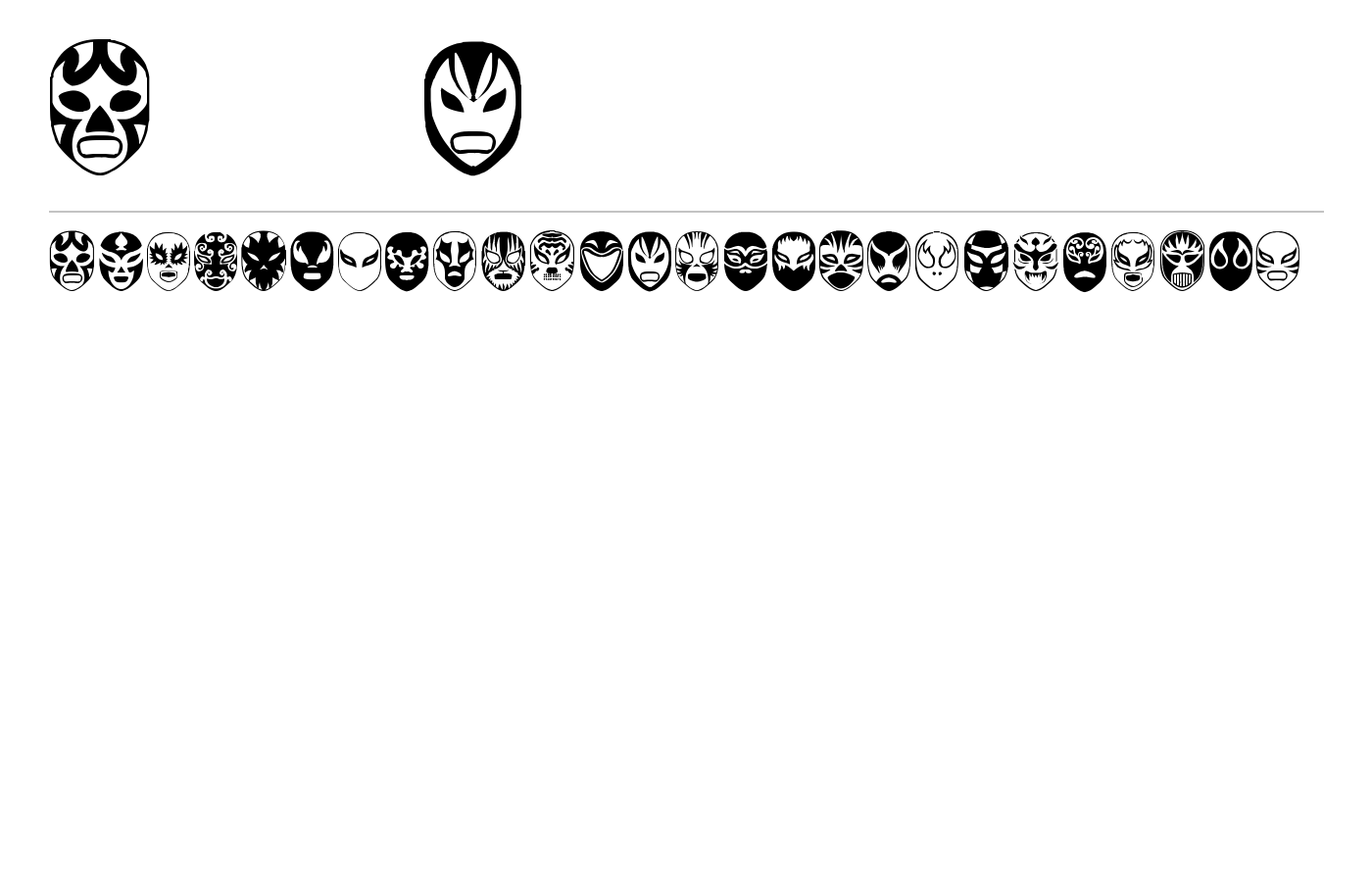
Arena Mascaras Font is a unique decorative typeface inspired by traditional lucha libre masks, featuring bold, intricate black and white mask icons instead of conventional letters. This playful and striking font works well for designs needing a strong cultural identity or edgy, graphic symbolism, making it perfect for branding, posters, and themed projects that celebrate Mexican wrestling or vibrant visual storytelling. Its distinctive style adds energy and character, immediately drawing attention in creative and informal contexts.
Arena Mascaras Font
About Arena Mascaras Font
| Font family | Arena Mascaras Font |
| Designer | Imagex |